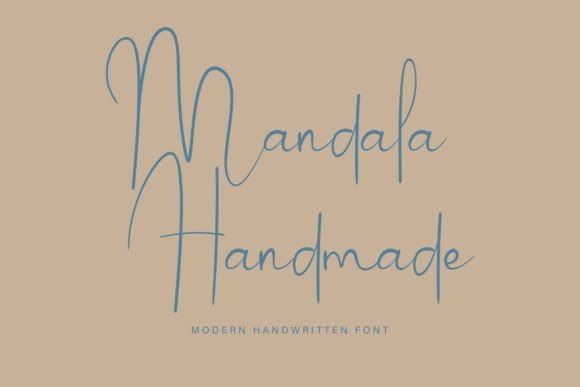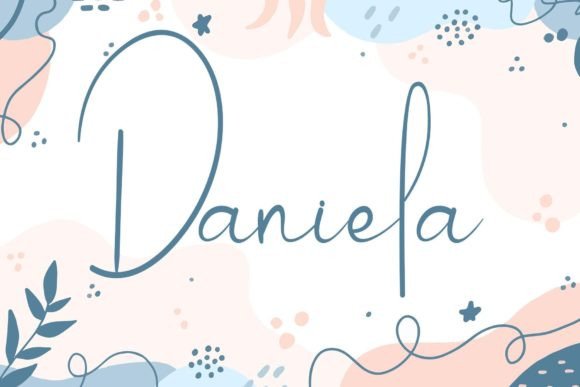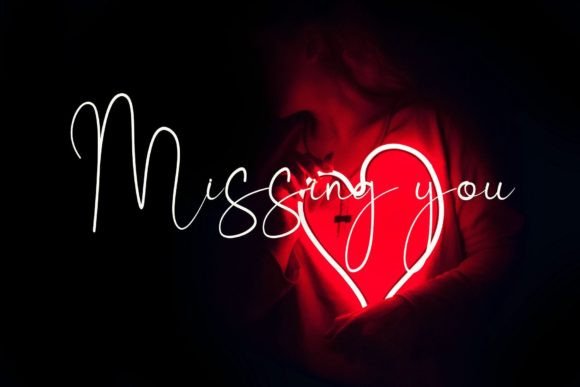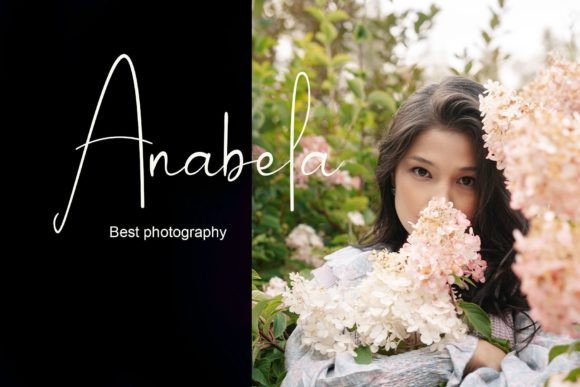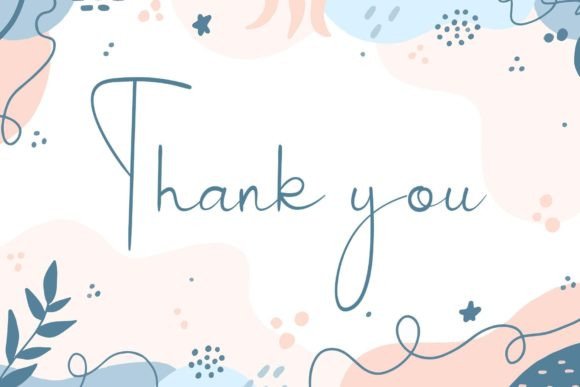
Mandala Handmade Font
About Mandala Handmade Font
Mandala Handmade is not just a font; it’s a work of art that exudes sweetness and beauty in every stroke. This handwritten font is a testament to creativity, featuring characters that gracefully dance along the baseline, creating a mesmerizing visual display. With its charming and elegant design, Mandala Handmade adds a touch of luxury to any design project, transforming it into a masterpiece that captivates the senses.
Imagine Mandala Handmade gracing an invitation for a special event. The font’s sweet and beautiful characters create an atmosphere of romance and sophistication, setting the perfect tone for a memorable celebration. Each letter swirls like an intricate pattern, evoking a sense of wonder and enchantment. Mandala Handmade elevates invitations into exquisite pieces of art, leaving a lasting impression on every recipient.
In greeting cards and love letters, Mandala Handmade adds a personal and heartfelt touch. Its handwritten charm conveys warmth and sincerity, making every word feel genuine and intimate. Whether you’re expressing love on Valentine’s Day, sending a heartfelt message to a friend, or creating a sentimental keepsake, the font’s elegance enhances the emotional impact, creating a connection that lingers in the reader’s heart.
Mandala Handmade also shines in branding and packaging designs. Picture this luxurious font gracing a high-end product label or a boutique logo. Its intricate and stylish appearance enhances the brand’s image, exuding sophistication and class. In the world of business cards and promotional materials, Mandala Handmade adds a touch of elegance, making a statement about the brand’s refined taste and attention to detail.
The font’s ability to dance along the baseline adds a dynamic and artistic element to various design projects. Whether you’re creating wedding stationery, social media graphics, or event posters, Mandala Handmade’s graceful characters create a visual spectacle, drawing the viewer’s eye and leaving a lasting impression. Its versatility makes it a valuable asset for designers seeking to add a touch of luxury to their creative endeavors.
In summary, Mandala Handmade is more than just a font; it’s a masterpiece that transforms your design projects into works of art. Its sweet and beautiful handwritten style, coupled with its luxurious charm, makes it a perfect choice for invitations, greeting cards, branding, and various other design applications. So, immerse yourself in the enchanting allure of Mandala Handmade and let its elegance and grace infuse your creations with a touch of magic, leaving a lasting impression on anyone who experiences them.